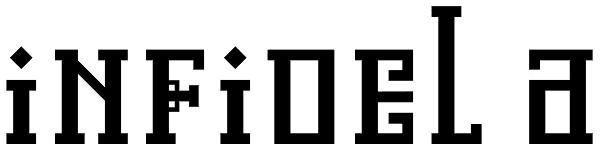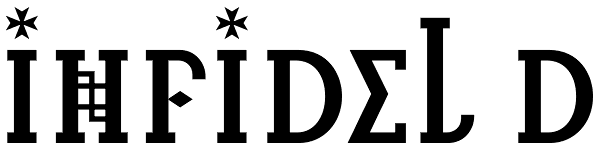
Infidel
Infidel is a font based on letterforms found in Christian illuminated manuscripts and bibles from the Middle Ages. These idiosyncratic forms—some beautiful, some ugly—have been redrawn in a contemporary way that we hope you find interesting. Infidel...
Infidel A
Infidel B
Infidel C
Infidel D